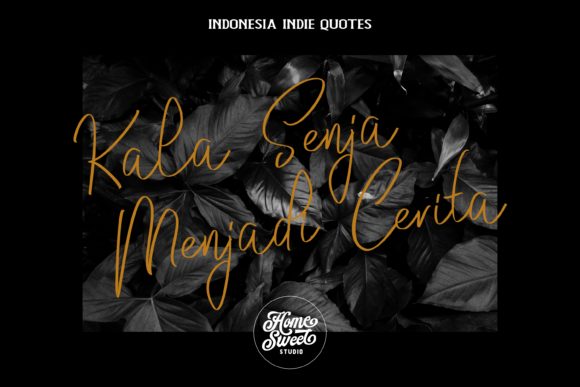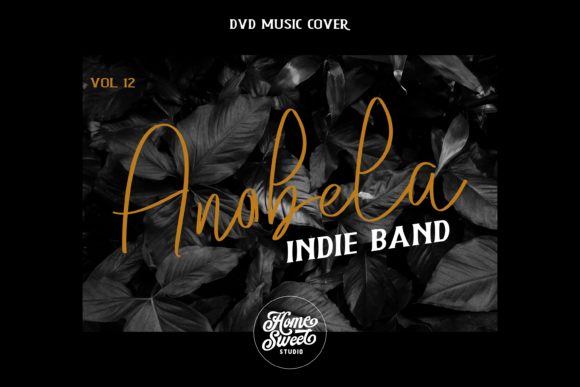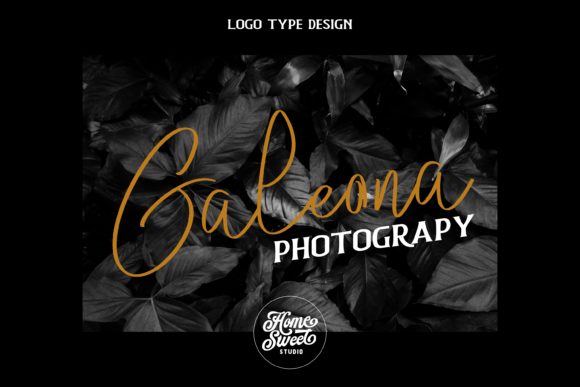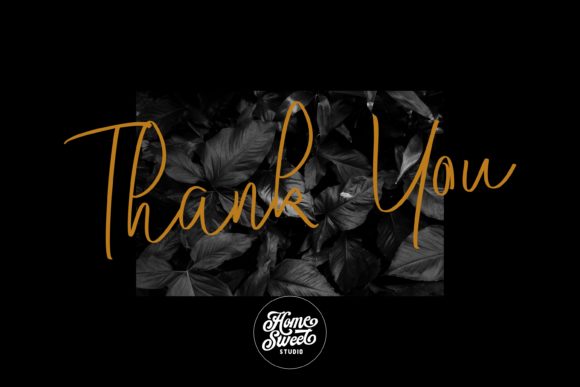
Introduction to Queen Risela Font Font
Fonts play a crucial role in design, and the Queen Risela Font font is a typeface that brings both character and versatility to any project. Whether you’re working on a branding project, a website, or a print design, the Queen Risela Font font offers a unique style that can elevate your work.
| 📌 Font Name | Queen Risela Font |
| 👤 Author | Home Sweet |
Queen Risela is an amazing handwritten font with a bold feel.
Get inspired by its timeless charm .
Key Features of Queen Risela Font Font
Why Choose Queen Risela Font Font?
The Queen Risela Font font is more than just a typeface – it’s a design tool that helps you communicate your message with style and clarity. Its unique character set and versatile design make it suitable for a wide range of applications, from elegant invitations to bold headlines.
With its carefully crafted letterforms and balanced proportions, the Queen Risela Font font ensures readability and visual appeal across all mediums.
What makes Queen Risela Font font special?
The Queen Risela Font font stands out with its unique design, exceptional readability, and versatility across various design applications.